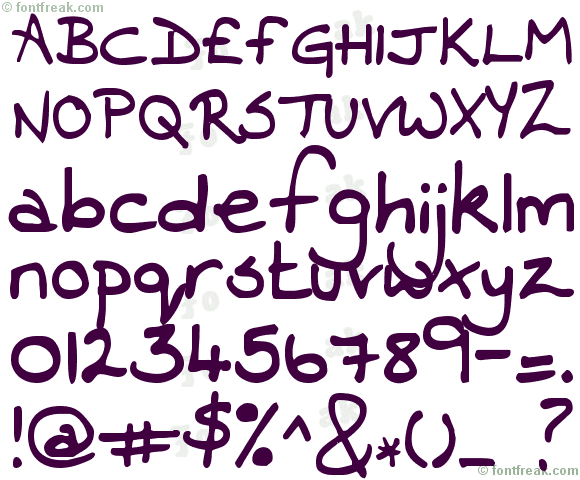
The Contrary Mary font, designed by Kimberly Geswein, is a charming handwritten typeface that captures a playful and whimsical essence. As a script font, it exhibits a unique blend of casual elegance and artistic flair. The strokes are uneven, which adds to its handwritten quality, while the varying stroke weights create a delightful contrast that enhances its visual appeal. The letters are spaciously arranged, allowing for easy readability, making it suitable for various design contexts.
This font shines in use cases such as wedding invitations, where its informal yet stylish look can add a personal touch. It is also perfect for children's book covers, as its friendly appearance engages young readers. Additionally, restaurant menus benefit from the Contrary Mary font, creating an inviting atmosphere that complements the dining experience. For social media graphics, this font can add a unique flair, making posts stand out in a crowded feed. Graphic designers, small business owners, and content creators will find this font particularly appealing for projects that require a touch of creativity and individuality.
What sets the Contrary Mary font apart is its ability to evoke a sense of warmth and approachability. Its handwritten style offers a personal touch that is often missing in digital typography. The free availability of the Contrary Mary font free download allows users to easily incorporate this delightful typeface into their projects without worrying about licensing fees. This combination of charm, versatility, and accessibility makes Contrary Mary an excellent choice for anyone looking to enhance their design work with a distinctive handwritten font.